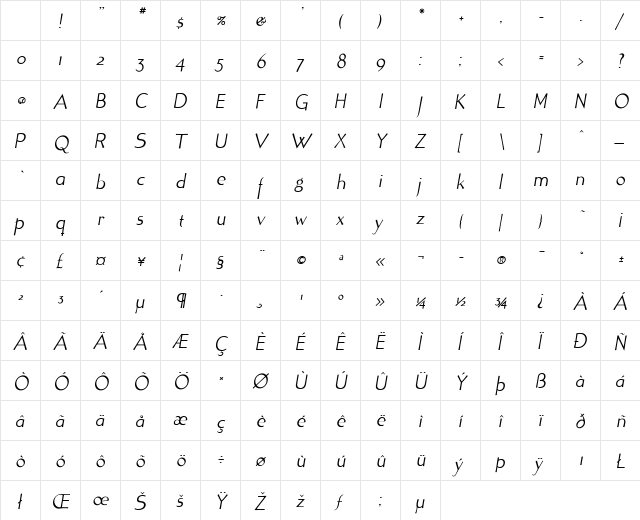
Tonic is a composed and adaptable typeface that performs quietly and consistently across a wide range of design contexts. The slanted form adds forward momentum and visual energy.
Pro Tip: Use Tonic for emphasis, pull quotes, and subheadings where its slanted energy can add rhythm to the layout.